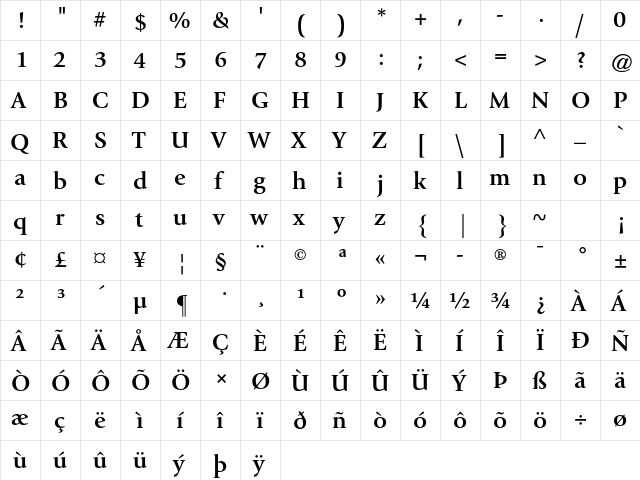
ITC Giovanni Std Bold Font Preview
ITC Giovanni Std Bold
ITC Giovanni Std Bold Font Details
| Designer | Robert Slimbach |
Design Context for ITC Giovanni Std Typeface
ITC Giovanni Std offers clean, dependable letterforms without strong stylistic allegiance, making it a practical choice for designers who need flexibility. Its bold stroke weight gives it real presence on the page.